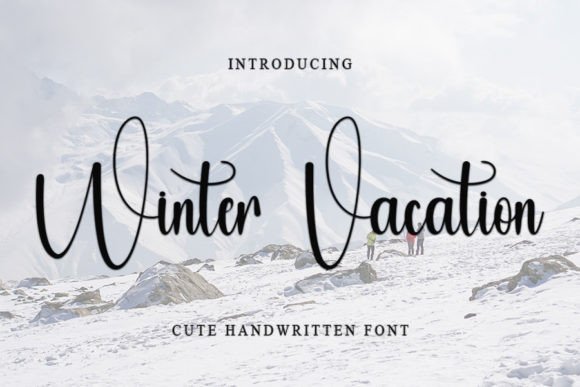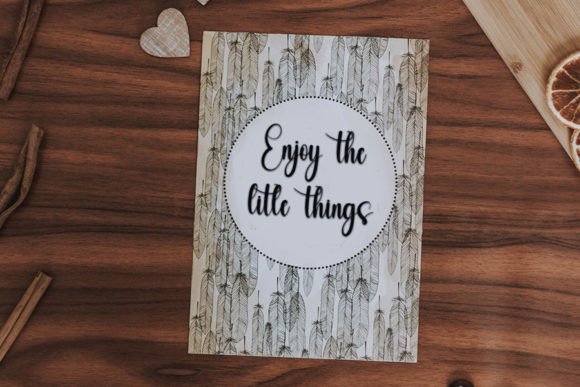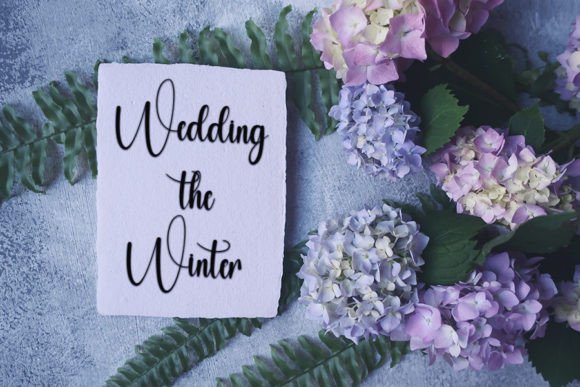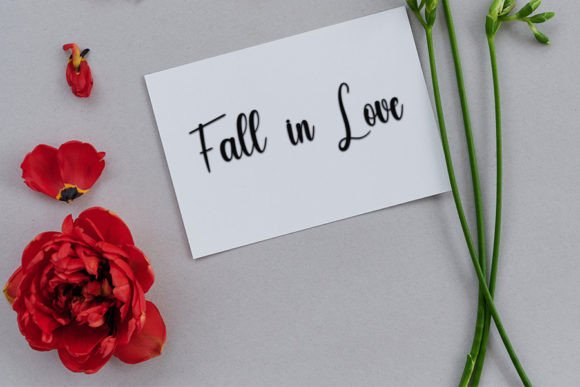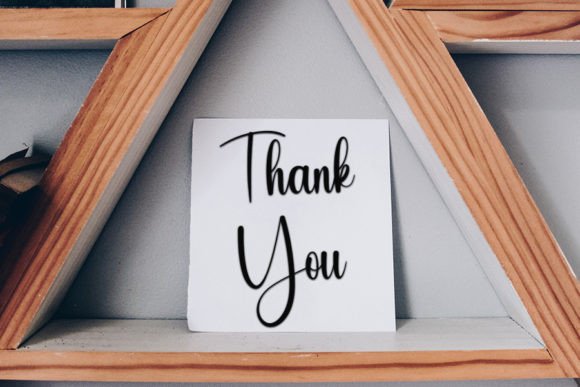
About Winter Vacation Font
Winter Vacation is a neat and beautiful handwritten font described by an elegant touch, perfect for your favorite projects. Fall in love with its incredibly distinct and timeless style, and use it to create spectacular designs!